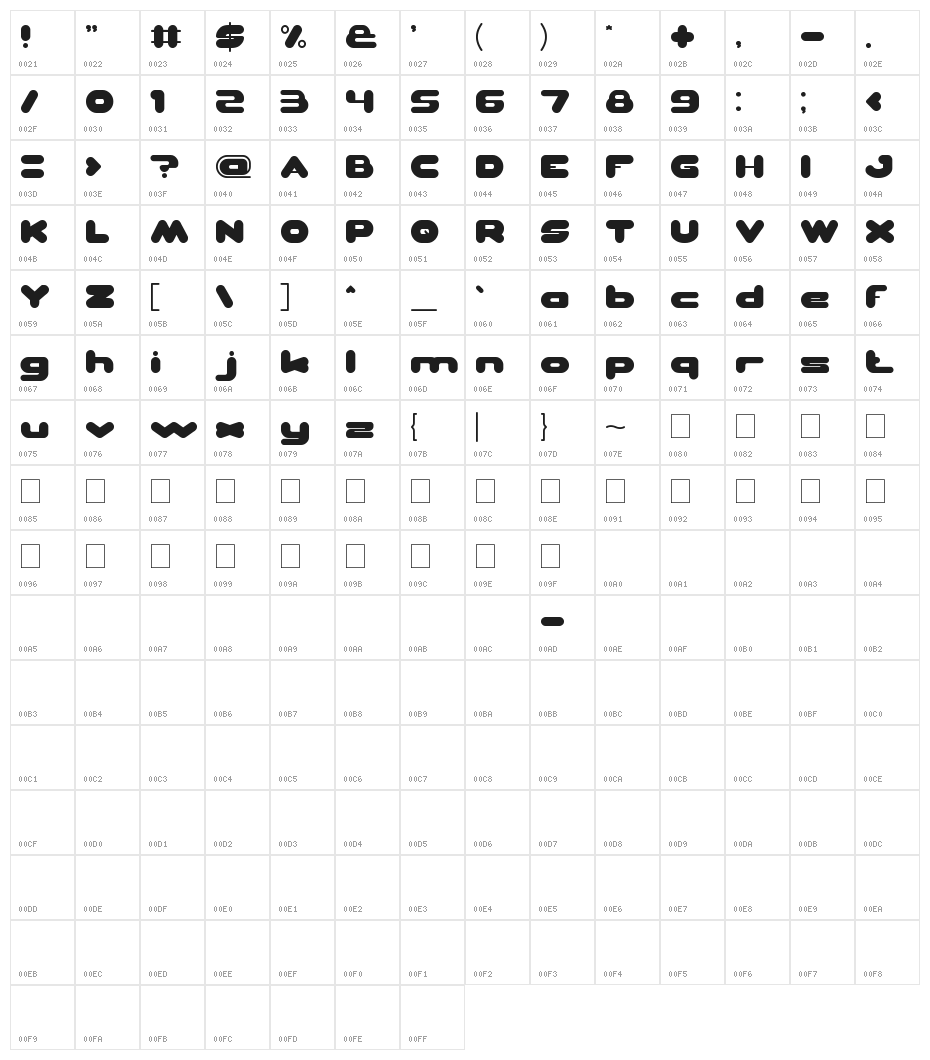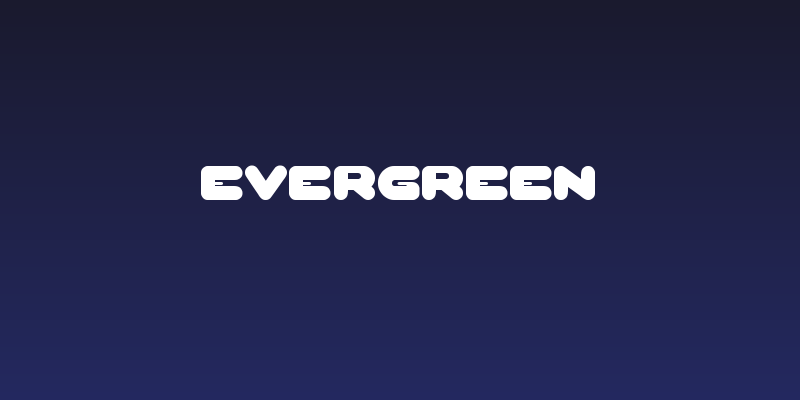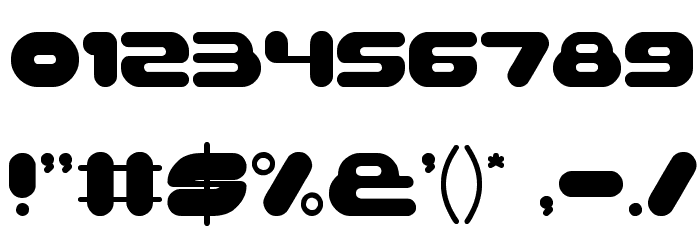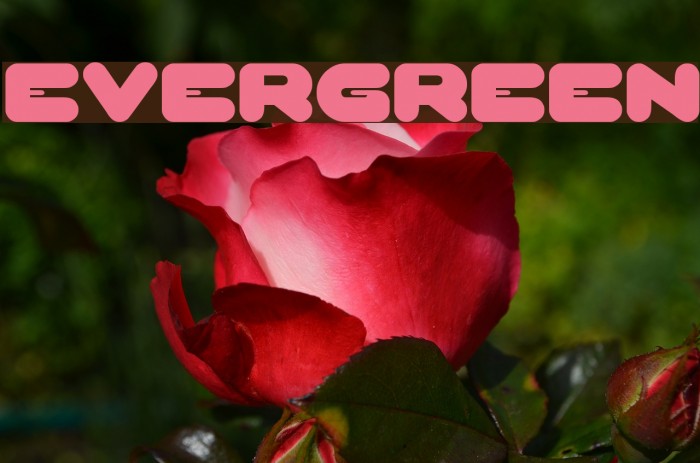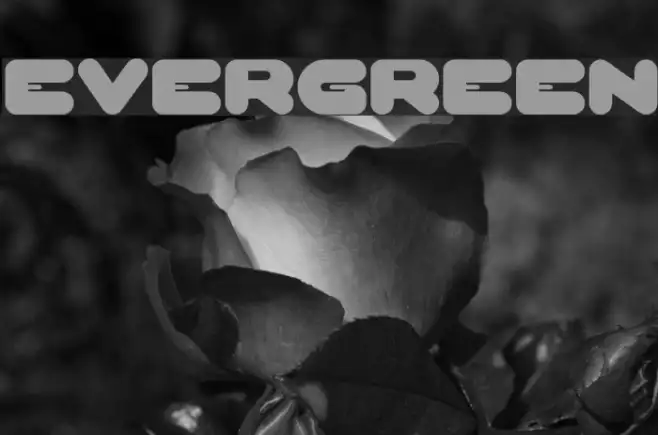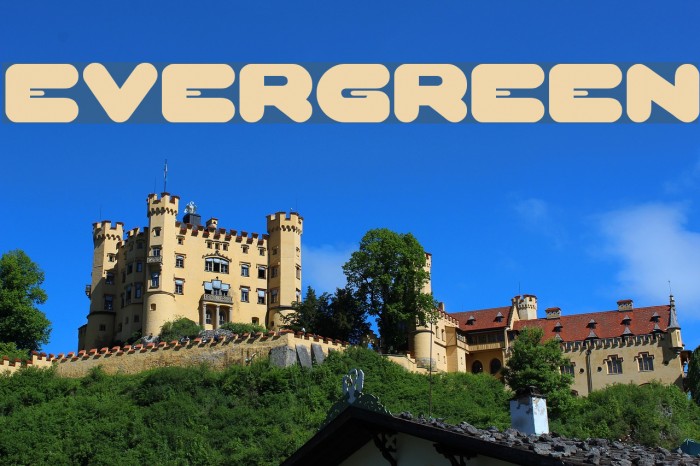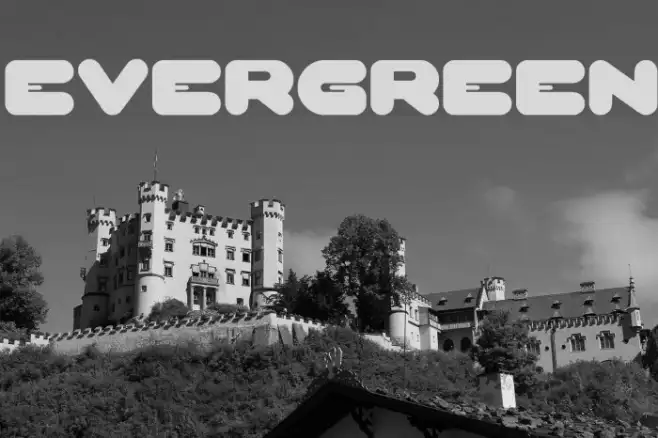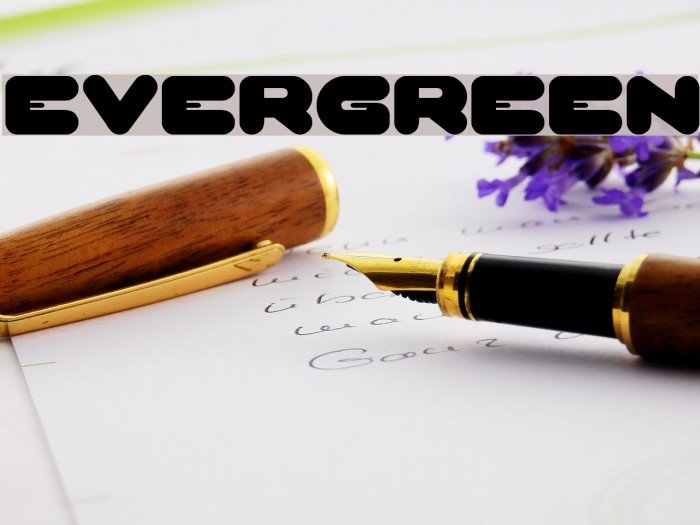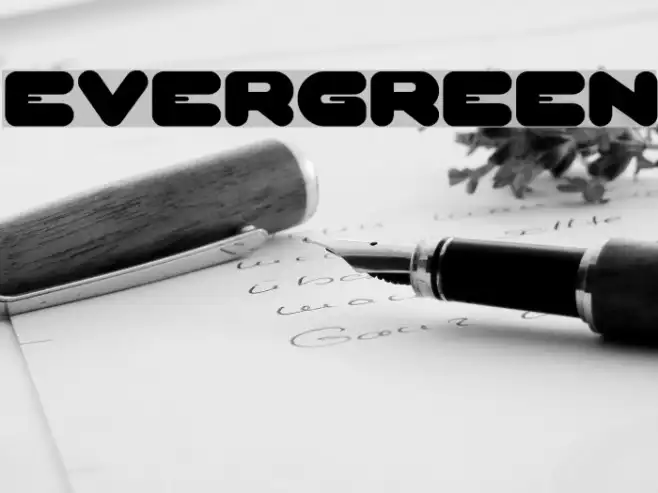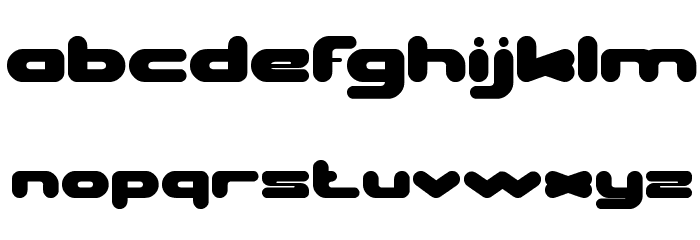
EVERGREEN Font
EVERGREEN Description
This font features a bold and rounded design with a futuristic and modern aesthetic. The characters are thick and have a uniform stroke width, giving them a strong presence. The rounded edges soften the overall look, making it approachable yet impactful. The uppercase and lowercase letters maintain a consistent style, while the numbers and special characters complement the alphabet with similar rounded and bold characteristics. This font is ideal for projects that require a modern and bold statement, such as branding, headlines, or digital media.
| Use Case | Headlines, Logos, Digital media |
| Proposed Projects | Ideal for branding, headlines, digital media, and futuristic designs. |